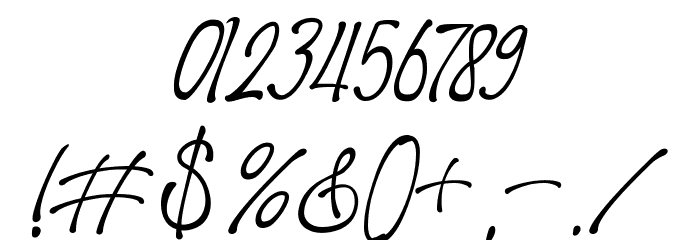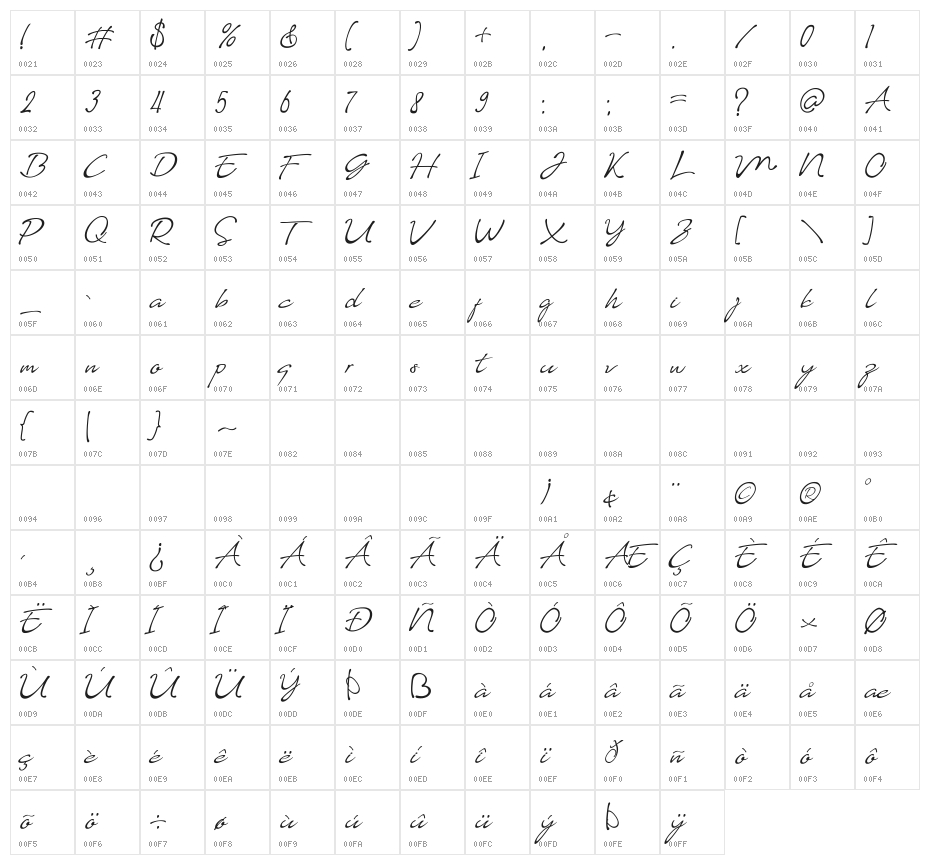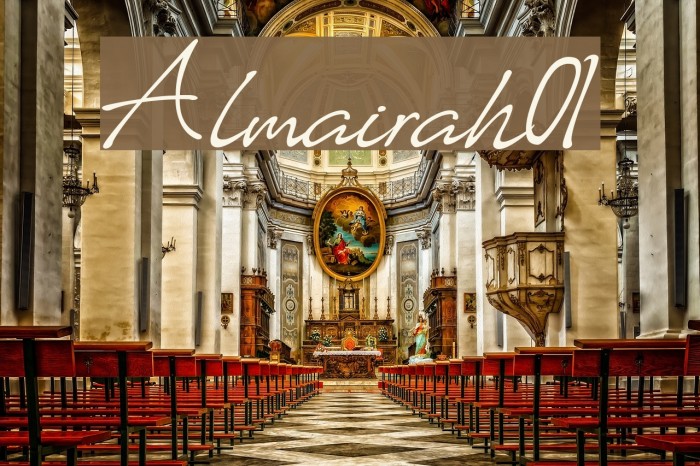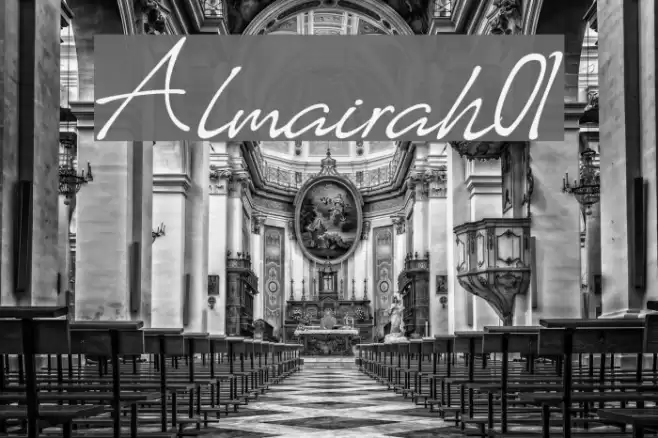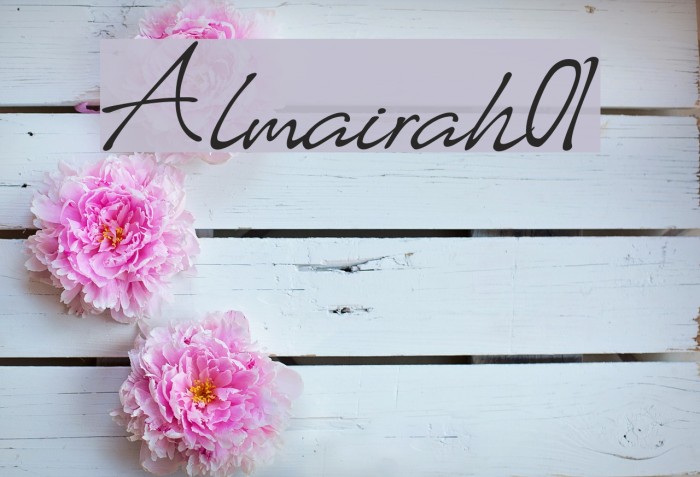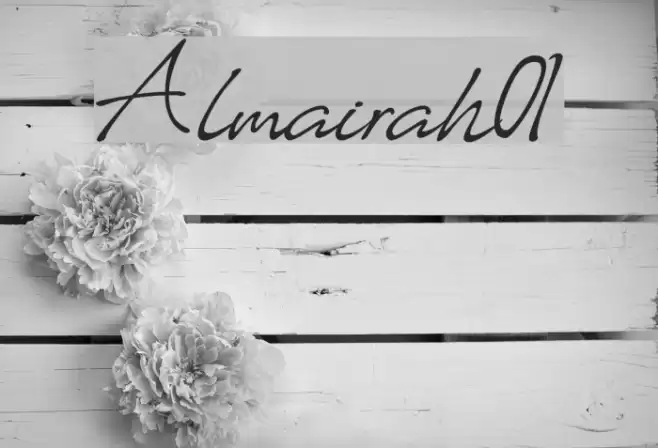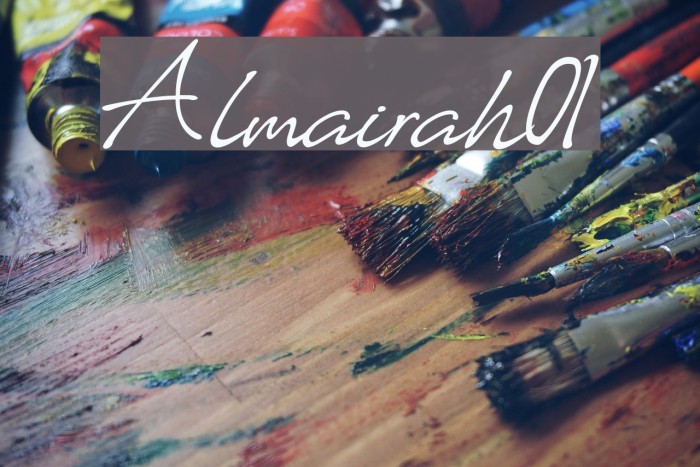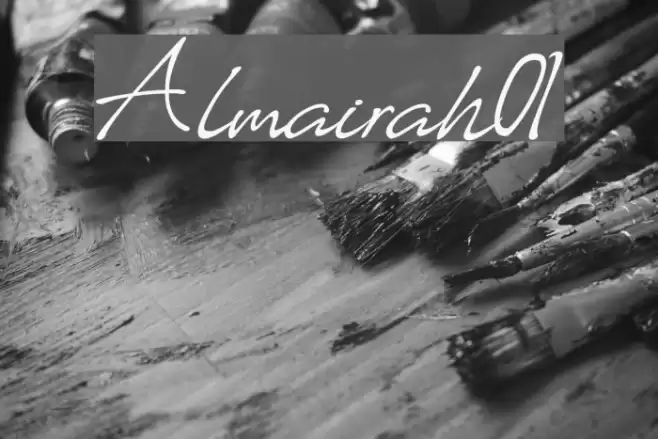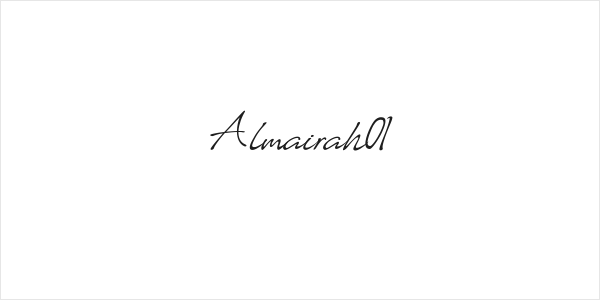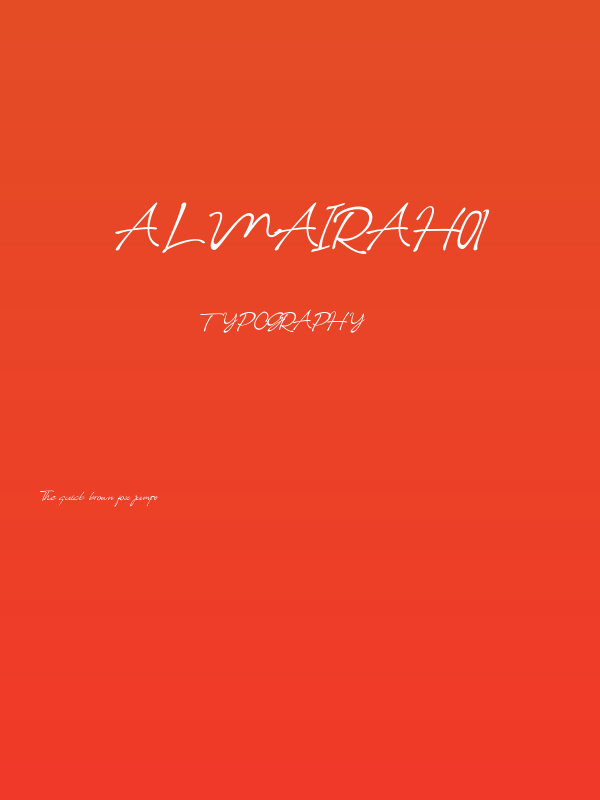
Almairah01 Font
Almairah01 Description
This font exudes a classic and elegant script style, characterized by its flowing, cursive letters that mimic the fluidity of handwriting. The uppercase letters are gracefully elongated, with sweeping curves and delicate loops, while the lowercase letters maintain a consistent, smooth flow. The numerals are stylishly integrated, maintaining the overall cursive theme. Special characters are crafted with the same attention to detail, ensuring a cohesive look across all glyphs. The font's design is both sophisticated and approachable, making it suitable for a variety of applications where a touch of elegance is desired.
| Proposed Projects | Ideal for wedding invitations, elegant branding, personal stationery, and decorative signage. |